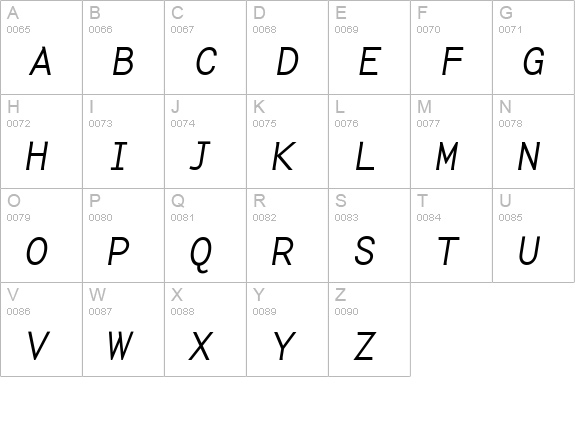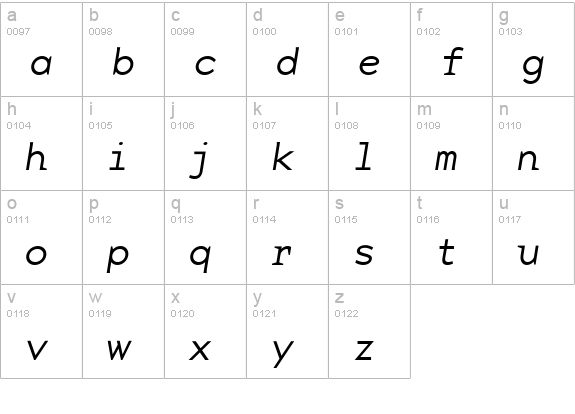
BaseMonoWide-Thin Italic is a delicate, low-contrast, italic variant in the BaseMonoWide typeface family \xE2\x80\x94 well suited to fashion editorial, minimal branding, and high-contrast display.
BaseMonoWide-Thin Italic is a sleek and modern typeface that exudes elegance and sophistication. With its slender and stylish design, this font is perfect for adding a contemporary touch to any project. The italicized version adds a touch of flair and dynamism to your text, making it stand out and capture attention. What makes BaseMonoWide-Thin Italic even better is that it is completely free to download at FontsMarket.com. Whether you're working on a design project, creating branding materials, or simply looking to elevate your written content, this font is a versatile choice that will enhance your work. Don't miss out on the opportunity to use this high-quality font for free and take your designs to the next level.